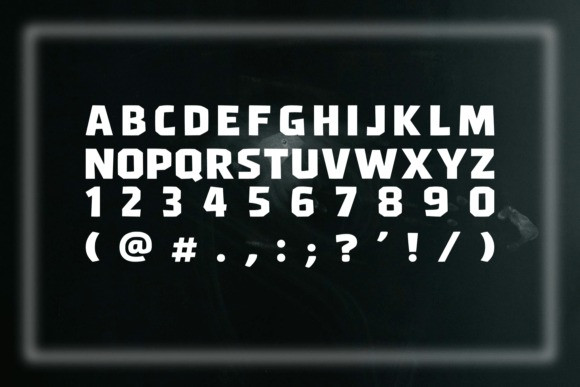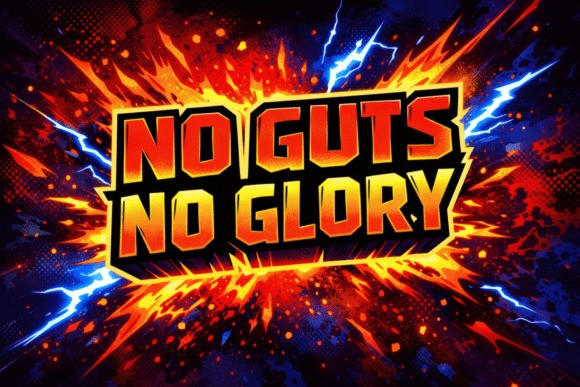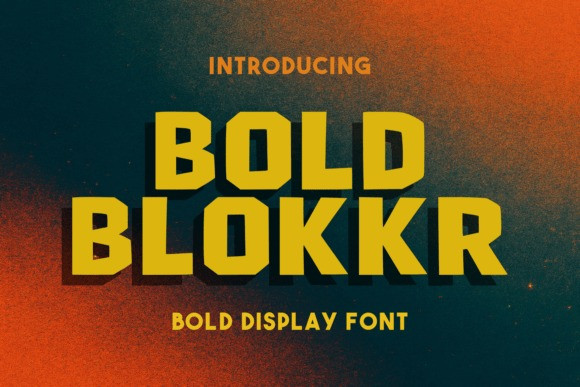
Bold Blokkr Font
Bold Blokkr Font a powerful display typeface that commands attention.Meticulously designed, it features bold, heavy block letters ideally suited for high-impact headlines, posters, or streetwear t-shirts. Its chunky and modern design combines with strong typography to create a font that is as versatile as it is stunning.
The Knockout Font is the go-to choice for bold urban style, sports branding, and eye-catching logos. Its compelling comic-inspired detailing makes it ideal for gym and fitness apparel, gaming logos, esports branding, or even YouTube thumbnails. Set the stage for flair and excitement with event posters, and up the game of album cover design, using the Knockout Font’s angular display features and thick strokes.
Its confident, masculine, and aggressive characteristics will bring a fresh and loud surge of style into sticker designs, social media graphics, and merchandise typography. Usher in a new level of modern feel to your packaging headlines with this unstoppable blend of bold, heavy, and impactful design. The Knockout Font: setting the standard in attention-grabbing fonts. Stand out, be bold, be unforgettable. Choose Knockout Font.